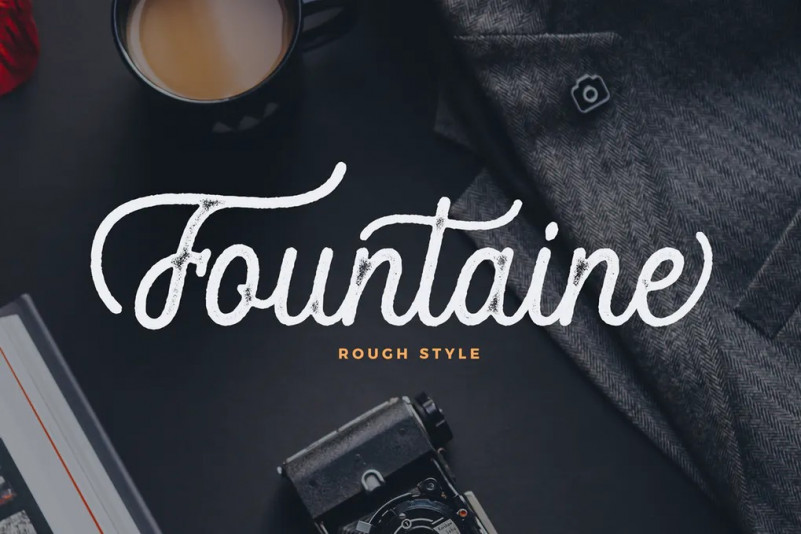
Fountaine Rough Font
Fountaine Rough Script is a new and fresh font script that comes with a rough style. so this font can provide an alternative, new sensation and vintage feel for the designer or craftsman, in working on various projects.
This font is perfect for all your projects like a wedding invitation, greeting cards, branding materials, business cards, quotes, posters, insignia, badge, greeting cards, vintage logo, or you can use this font for various logo project (logotype) and more!